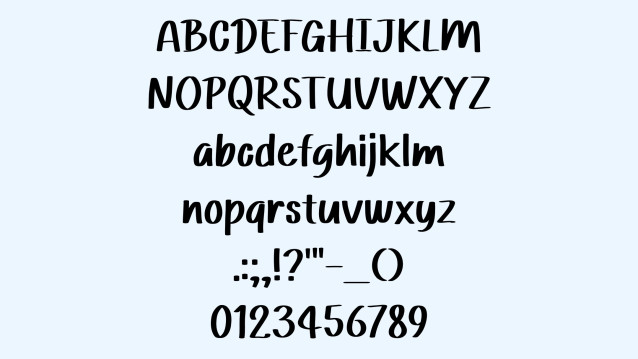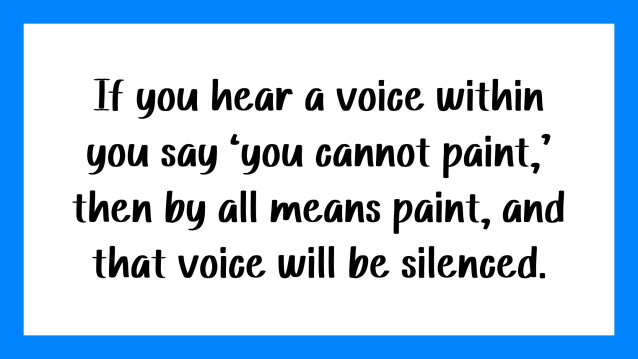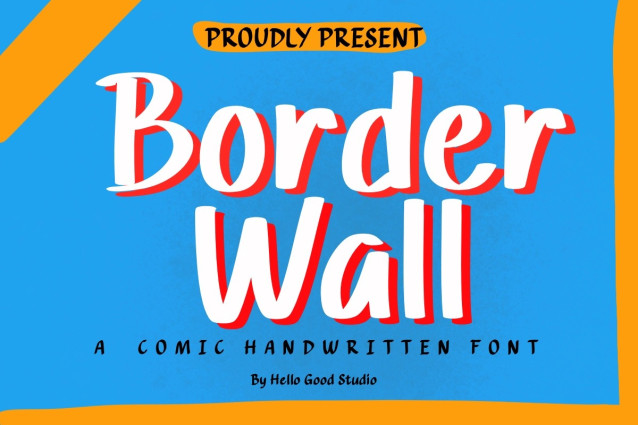
Border Wall Font
Border Wall Font a sweet and friendly handwritten font. Cute and fun, this font is ideal for writing wedding invitations, cards, or any other design that might need a fun touch!